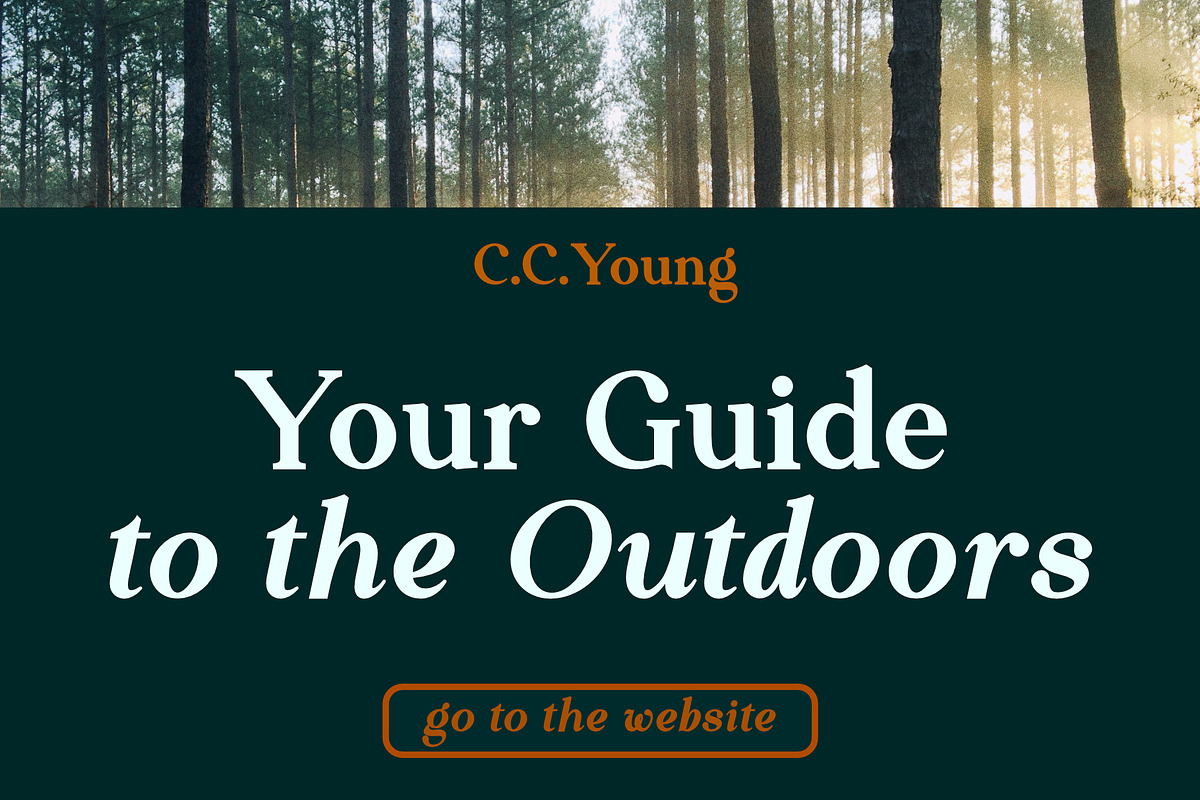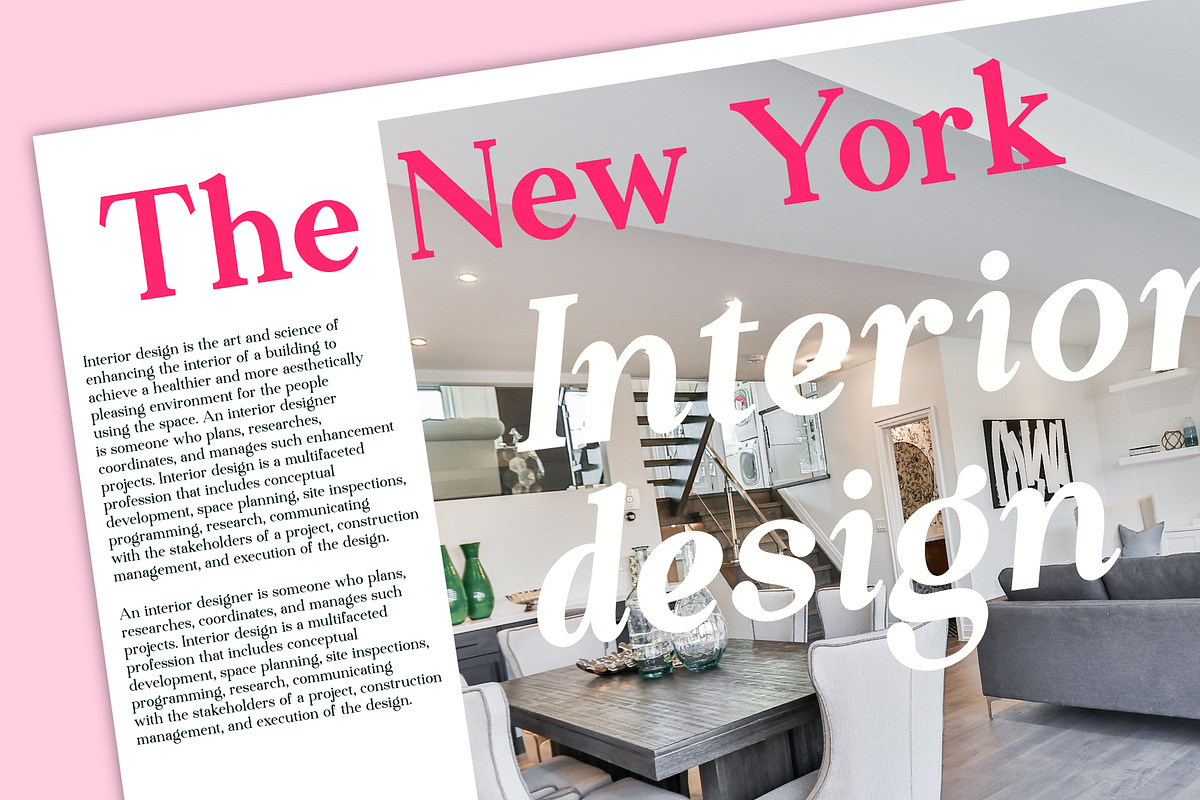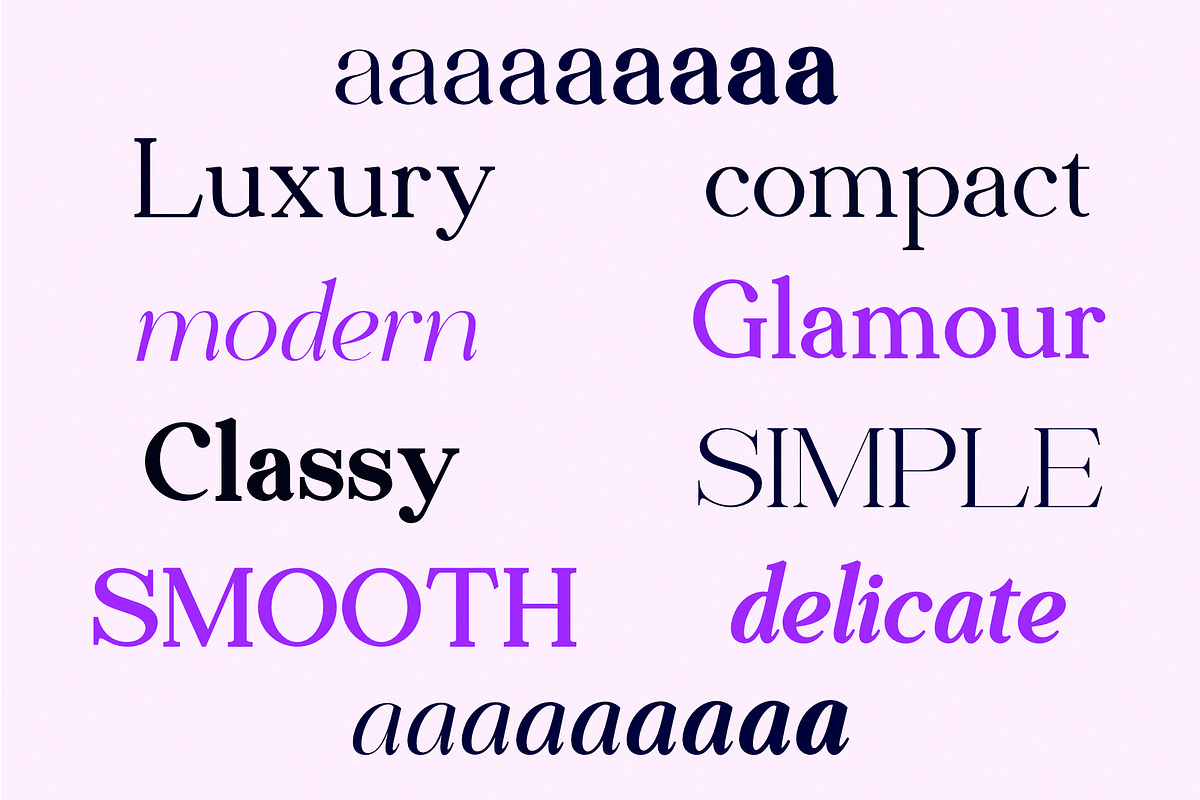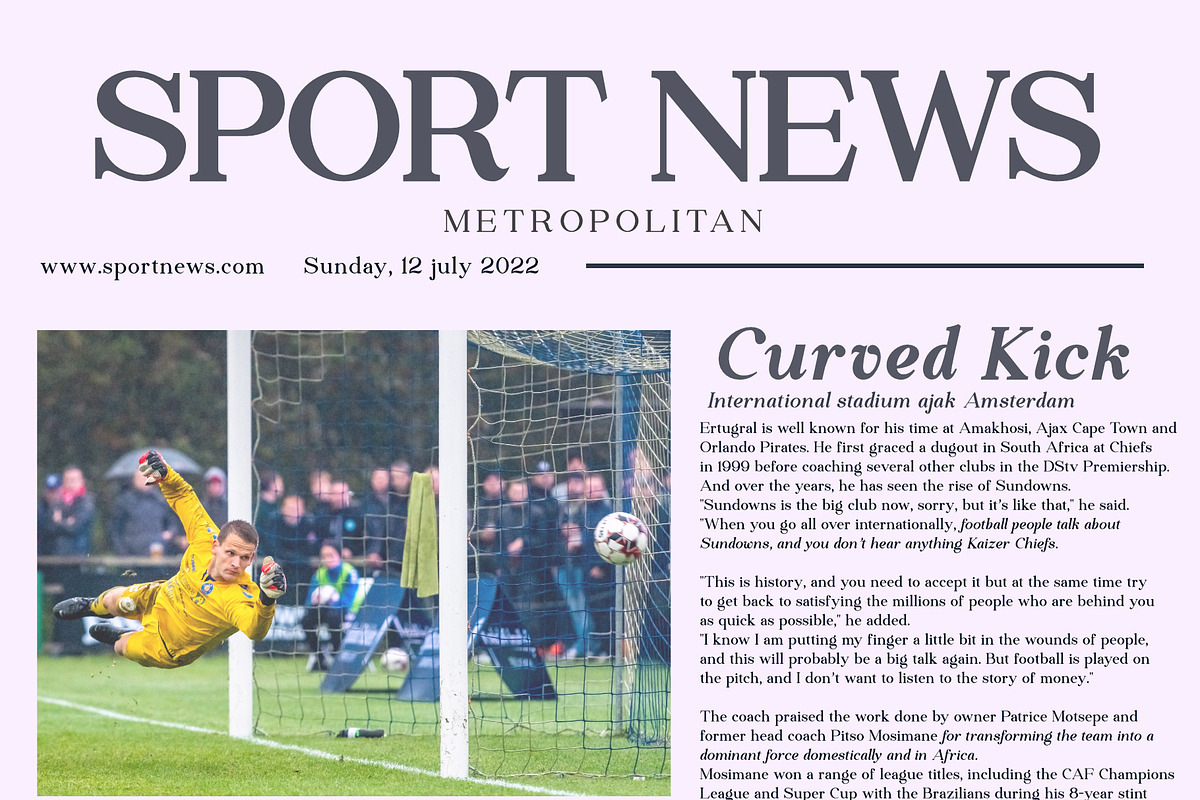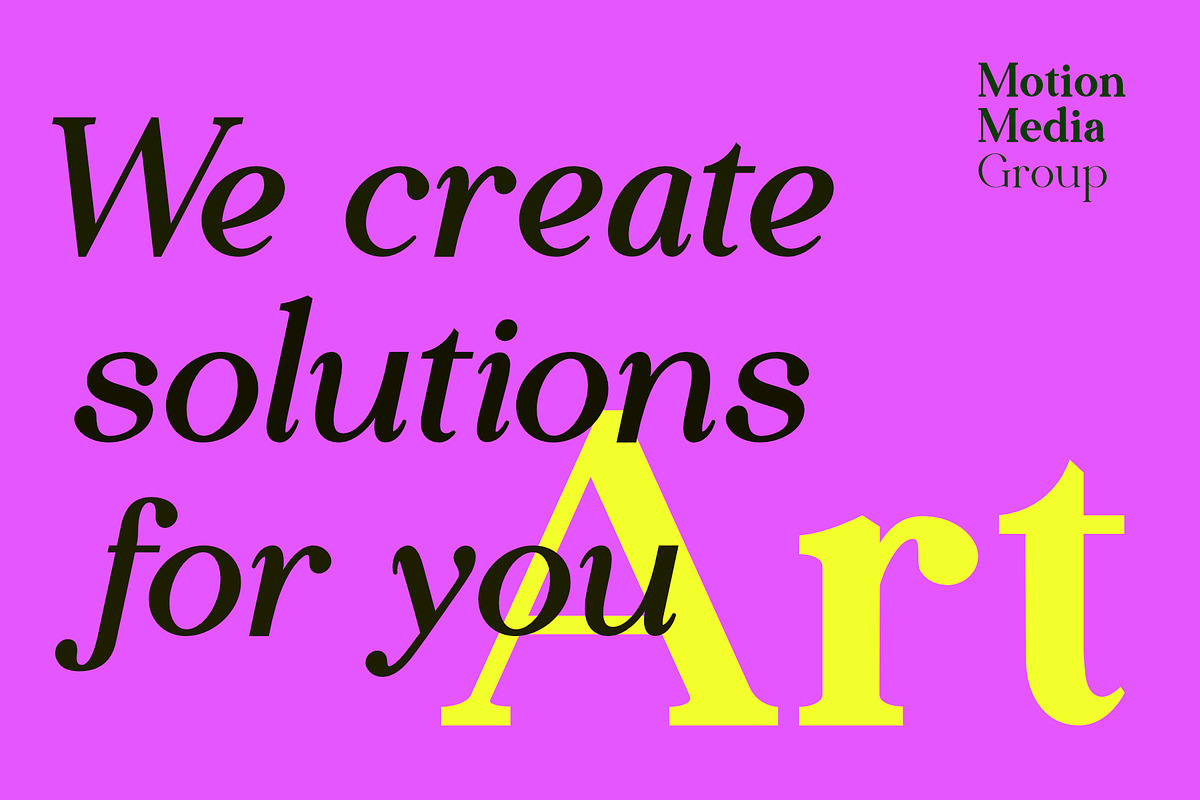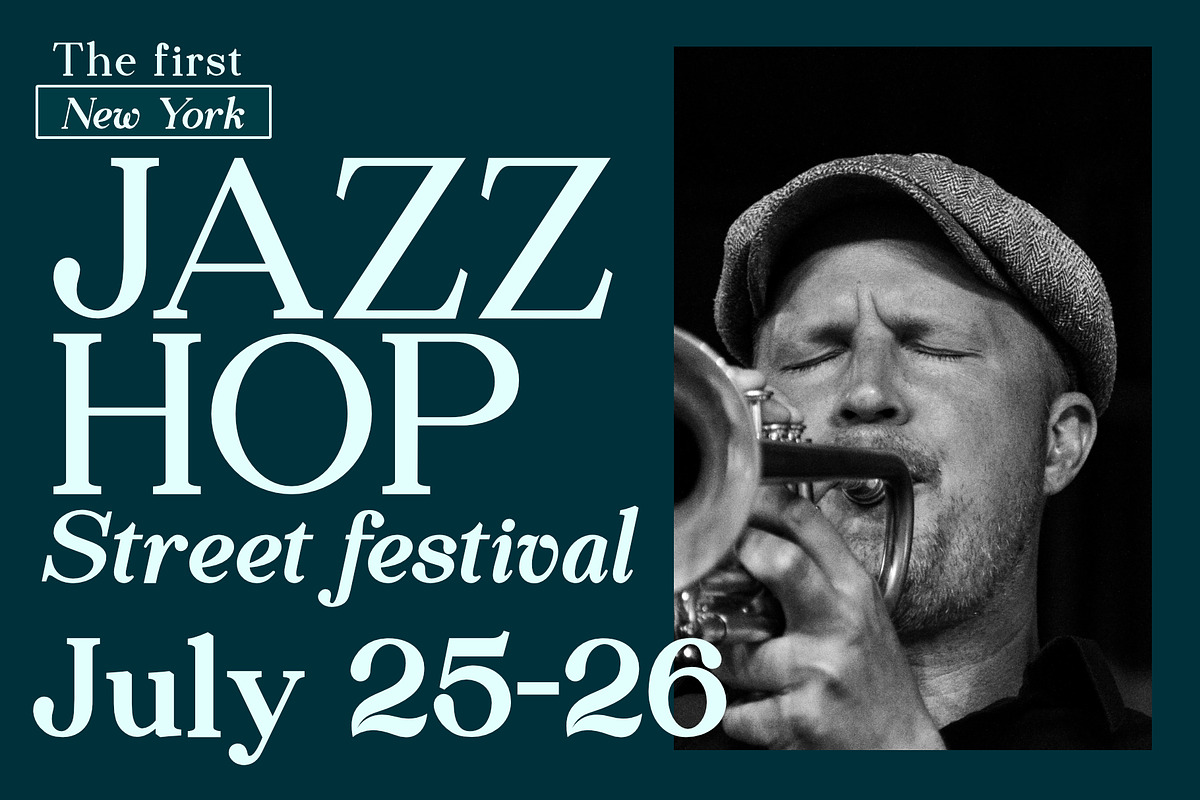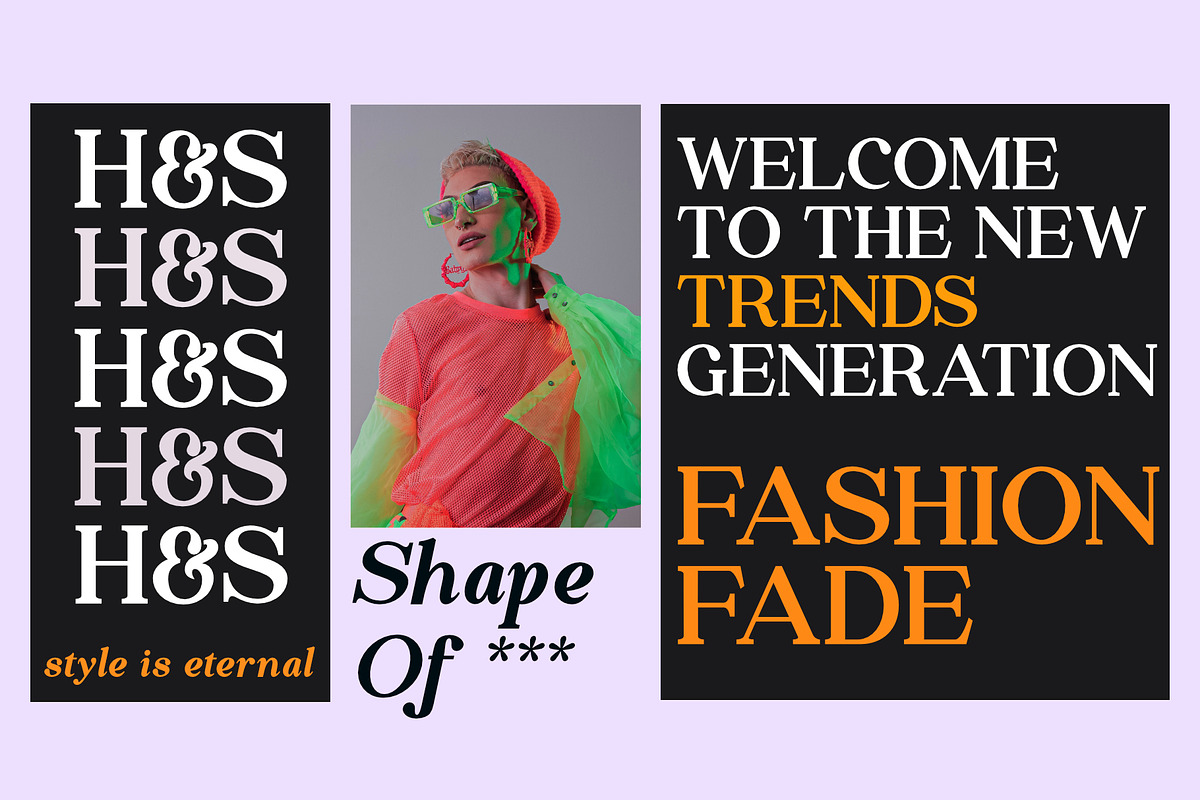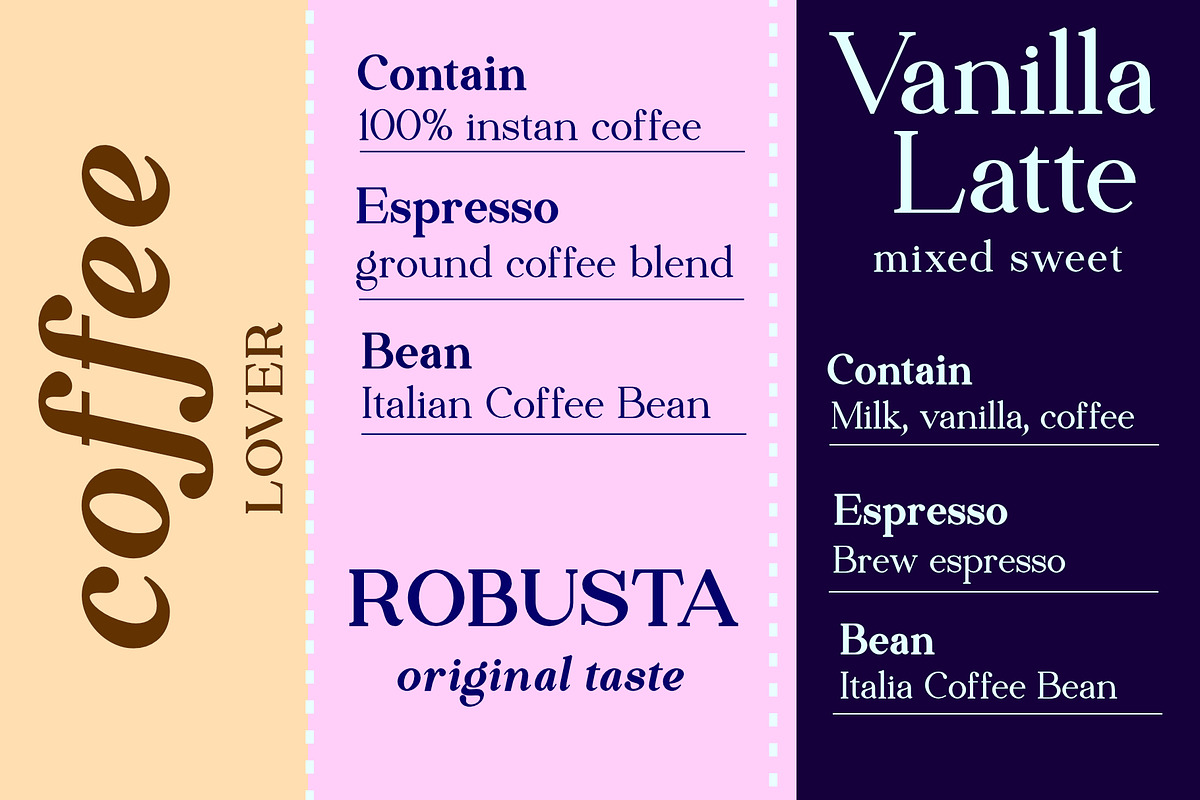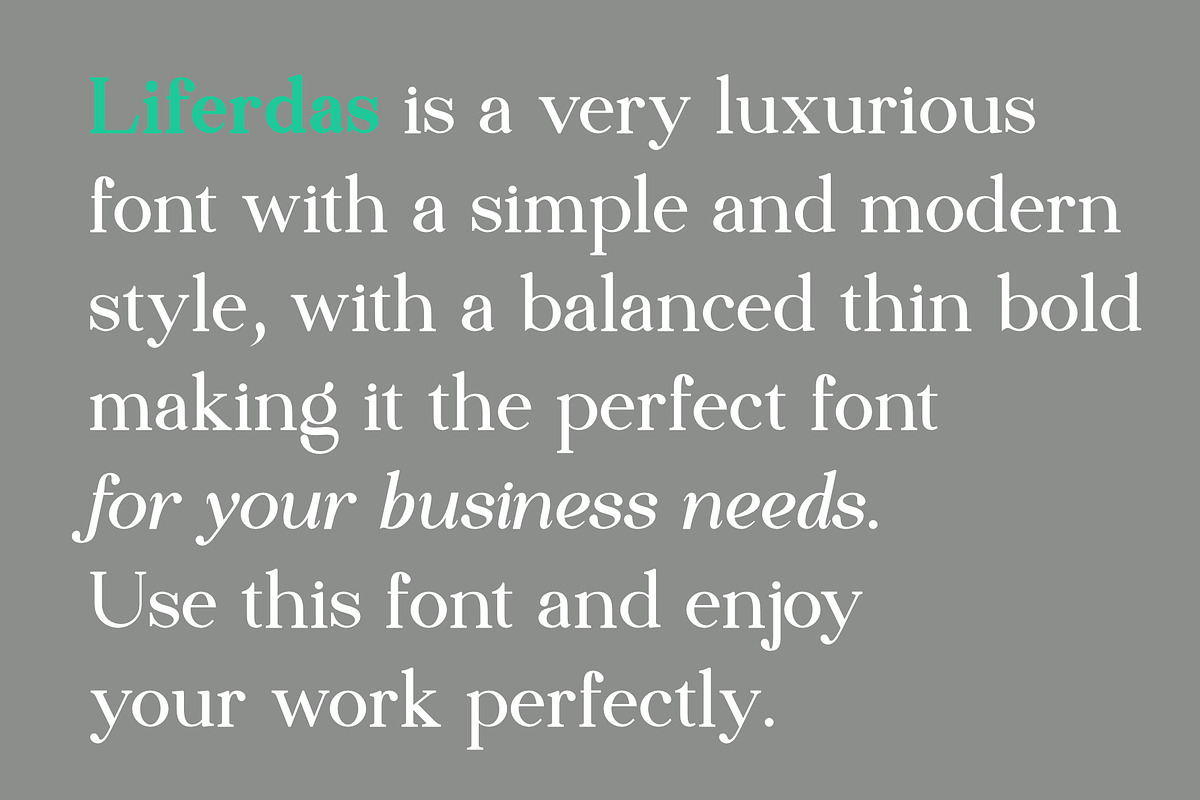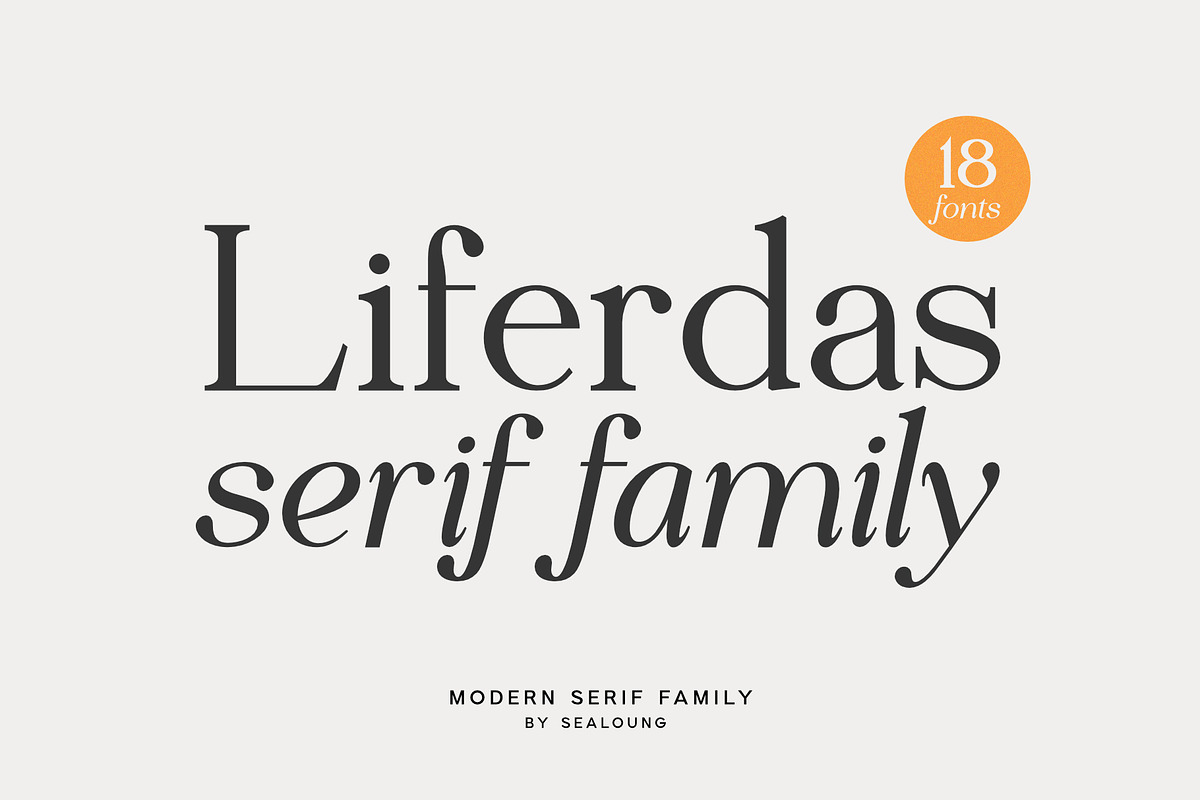
Liferdas Serif Family
Liferdas is a mix of Old Style Roman Serif styles. The glyphs are formed in extended width, smooth strokes, moderate stem contrast, and soft edges to pursuing clarity, quick recognizable text, and a warm personality. The italics style is 13 degrees low slanted with redrawn lowercase which has shown in more organic and flowy forms. This font contains 9 weights with more than 245 glyphs that support extended multilingual.